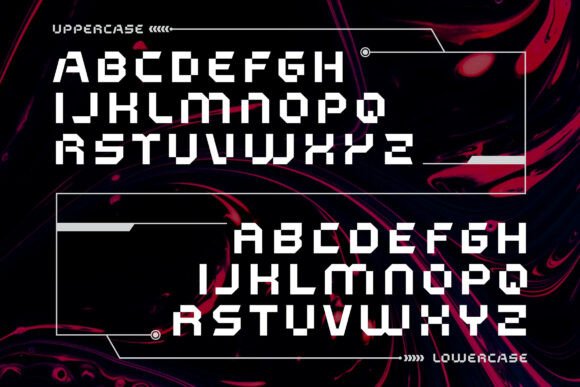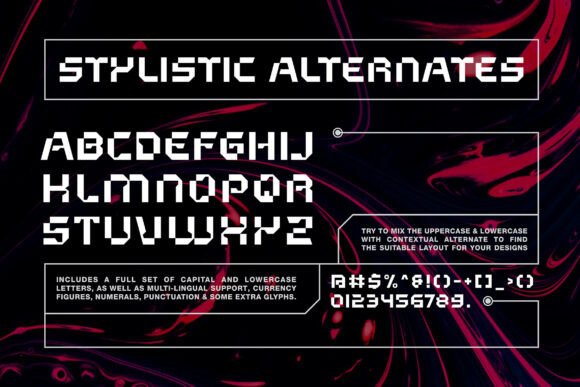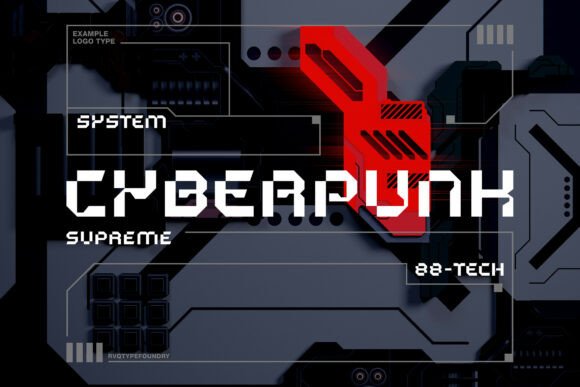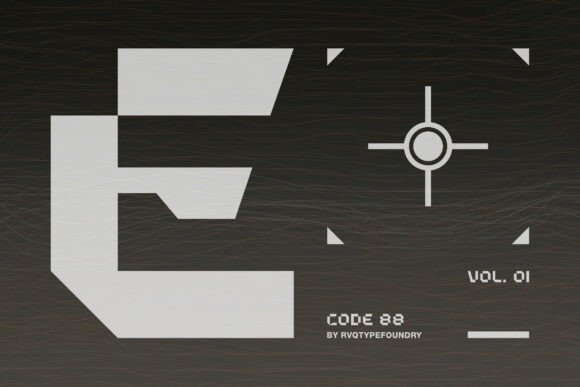
Introducing Code 88 Font: The Futuristic Display Font for Modern Designers
In the world of typography, a new font has emerged that is taking the design community by storm. Code 88, the latest creation from Rvq typefoundry, is a futuristic display font that is perfect for designers looking to add a touch of innovation and style to their projects. In this article, we’ll dive into the features and benefits of Code 88, and explore how it can elevate your branding, gaming, esports, UI/UX, cyberpunk design, and digital innovation projects.
A Comprehensive Character Set
Code 88 is more than just a font – it’s a comprehensive character set that includes a full set of capital and lowercase letters, as well as multi-lingual support, currency figures, numerals, punctuation, and some extra glyphs. This means that designers have access to a wide range of characters to work with, making it easy to create visually stunning text that communicates their message effectively.
Perfect for Modern Design Projects
Code 88 is specifically designed for modern design projects that require a futuristic and cutting-edge aesthetic. Its sleek and futuristic design makes it perfect for:
- Branding: Create a lasting impression with your brand’s identity using Code 88’s unique and memorable design.
- Gaming: Add a touch of excitement and energy to your gaming projects with Code 88’s bold and futuristic design.
- Esports: Take your esports branding to the next level with Code 88’s sleek and high-tech design.
- UI/UX: Enhance the user experience with Code 88’s clean and intuitive design, perfect for digital products and interfaces.
- Cyberpunk Design: Create a dystopian or futuristic atmosphere with Code 88’s edgy and avant-garde design.
- Digital Innovation Projects: Showcase your innovative ideas and projects with Code 88’s modern and forward-thinking design.
Key Features of Code 88
So, what makes Code 88 stand out from other fonts? Here are some of its key features:
- Character Set: A-Z, a-z (full set of capital and lowercase letters)
- Numerals & Punctuations: OpenType standard, including numerals, punctuation, and currency figures
- Accents: Multilingual characters for global design projects
- Stylistic Alternates: Add some extra flair to your design with Code 88’s stylistic alternates
Why Choose Code 88?
With so many fonts available, why should you choose Code 88? Here are just a few reasons:
- Unique Design: Code 88’s futuristic design sets it apart from other fonts, making it perfect for designers looking to create something new and innovative.
- Versatility: With its comprehensive character set and range of features, Code 88 can be used for a wide range of design projects.